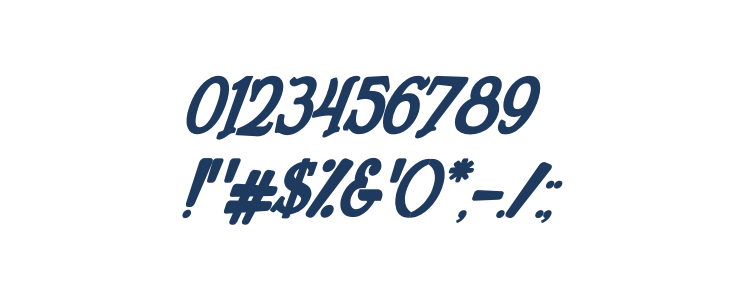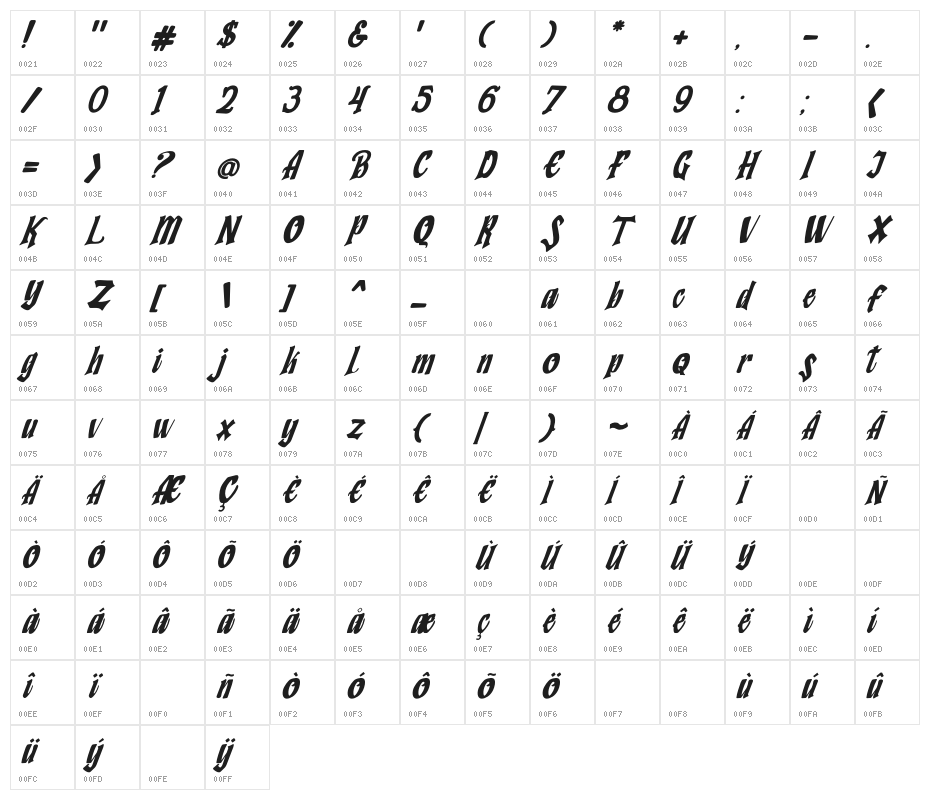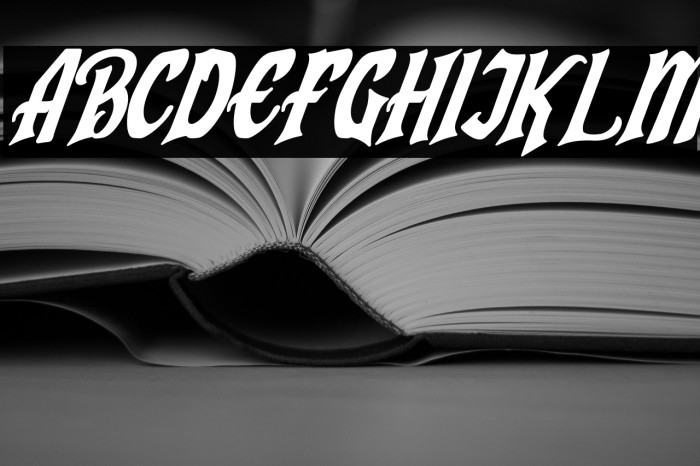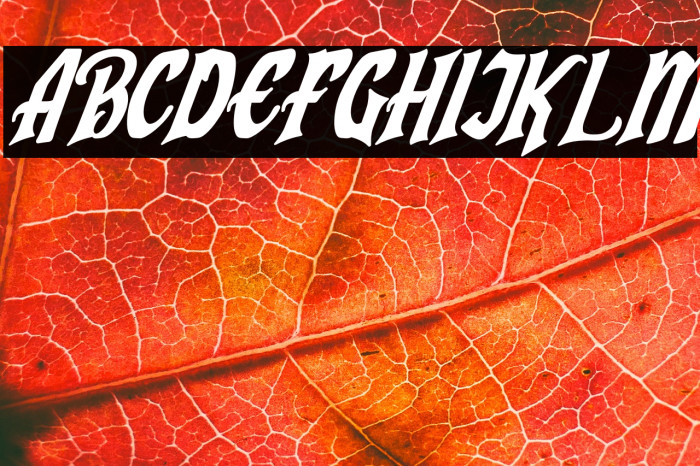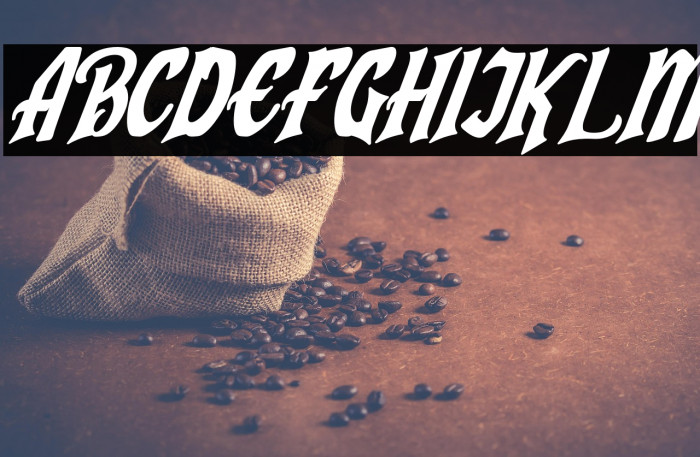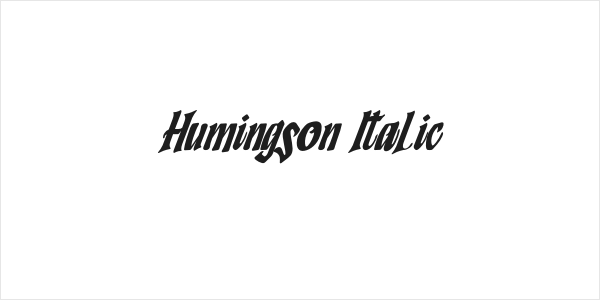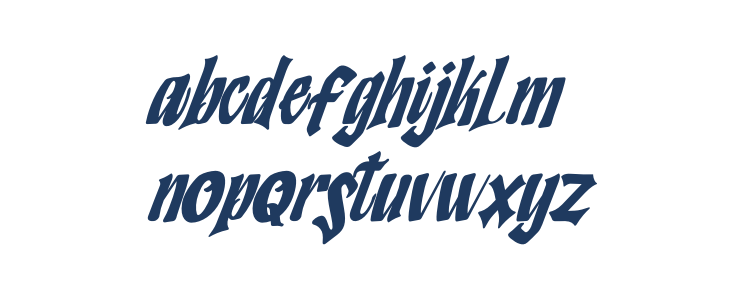
Humingson Italic Font
Humingson Italic Description
This font features a bold, italicized style with a strong and dynamic presence. The characters are sharply angled, giving them a sense of movement and energy. The strokes are thick and consistent, providing a high contrast that enhances readability while maintaining a decorative flair. The uppercase and lowercase letters are designed with a cohesive flow, and the numerals and special characters complement the overall aesthetic. This font is ideal for making a bold statement, with its unique and eye-catching design.